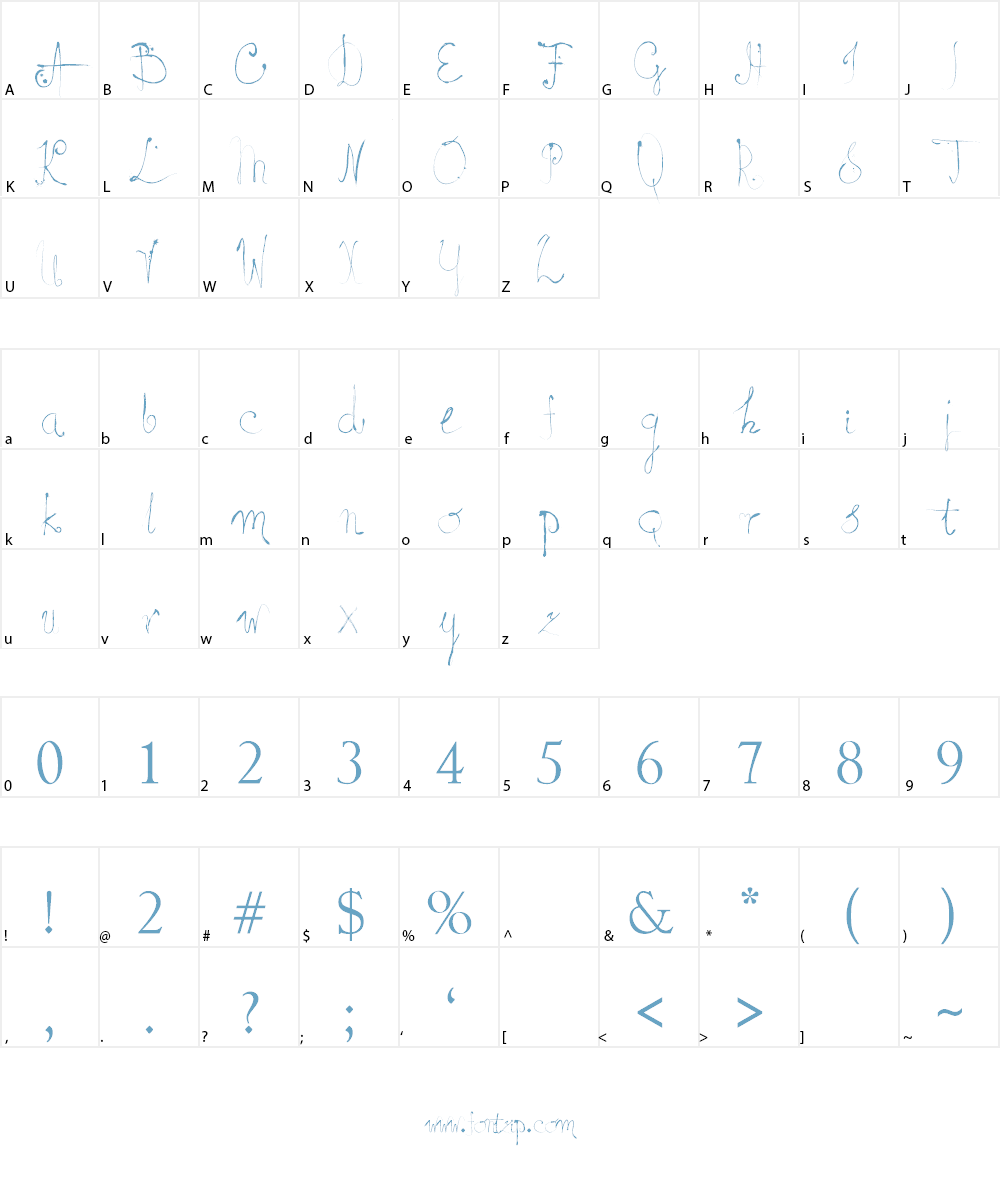
This is font I created using old notes from my grandmother`s kitchen book. Little clumsy and dirty but hope you can use it somehow. If someone is interested about commercial use please send me note at: